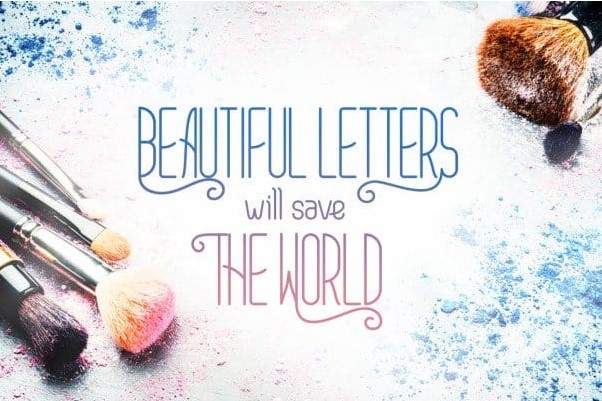
Romantic Curly Font
Romantic curly font falls under the category of handwritten fonts, this typeface is the proud member of the CSS family and used in google docs.
Together with business enterprise logos and steel fabricated lettering. That is a further adorable and particular kind in sans serif typeface circle of relatives.
Style of Romantic Curly Font Free